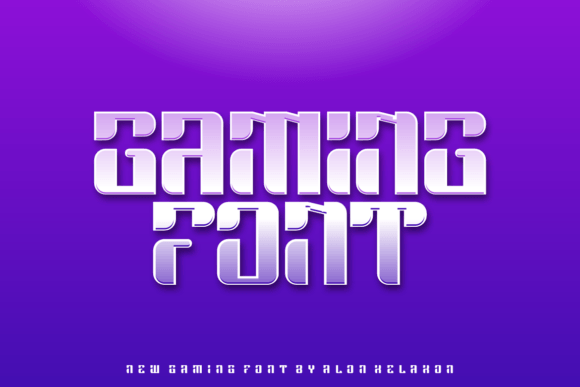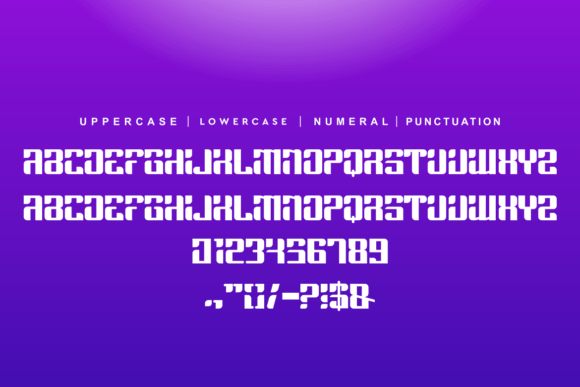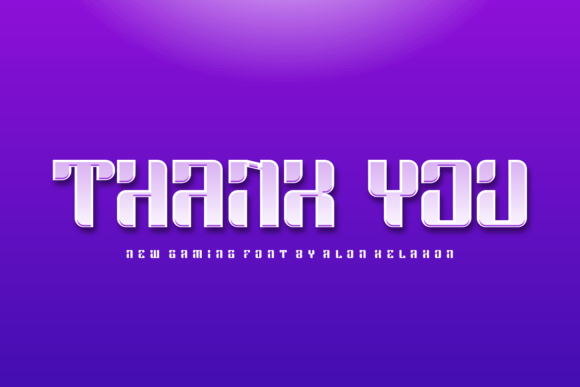
Introduction to Power Wonder Font
Have you ever been working on a creative project, pouring your heart and soul into every detail, and then – the perfect font comes along and elevates your design to a whole new level? For many designers, this is the moment of truth. The moment when all the pieces fall into place and the design starts to shine.
This is exactly what the Power Wonder Font is all about. As a high-quality design resource, it’s the perfect addition to any creative project, offering a modern and sleek aesthetic that’s sure to make your design stand out. With its transparent background and bold, eye-catching letters, the Power Wonder Font is a true game-changer for designers looking to take their work to the next level.
Key Features of Power Wonder Font
- High-quality design resource for creative projects, featuring a unique blend of modern and futuristic elements.
- Transparent background, allowing for easy integration with various design elements and backgrounds.
- Perfect for use in logos, branding materials, and other visual identity elements, thanks to its distinctive and eye-catching design.
Honest Review: Power Wonder Font
I recently stumbled upon the Power Wonder Font, a high-quality design resource that’s perfect for any creative project. As a designer, I’m always on the lookout for unique and versatile fonts that can elevate my work.
- Transparency: The font comes with a transparent background, making it super easy to use on any design or image.
- High-Quality Typography: The font’s typography is crisp and clear, perfect for headings, titles, or even body text.
- Limited Character Set: The font has a relatively small character set, which may not be suitable for complex or multilingual projects.
- No Bold or Italic Variations: The font only comes in regular weight, which might limit its use in certain design scenarios.
Overall, I’m quite impressed with the Power Wonder Font. Its unique design and high-quality typography make it an excellent addition to any design library. While it has some limitations, I believe it’s still a valuable resource for designers and creatives looking for a versatile and free font.
For optimal results, use the Power Wonder Font in combination with other design elements to create a cohesive look.